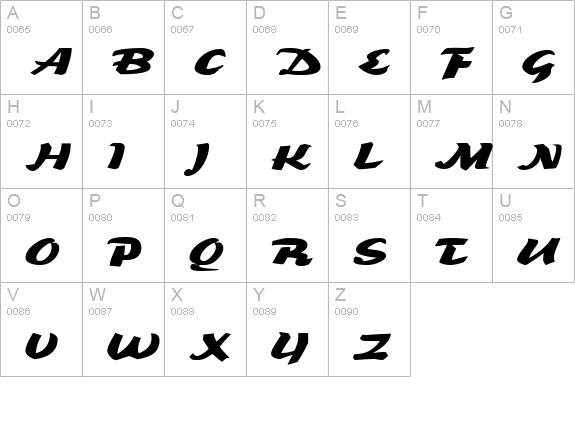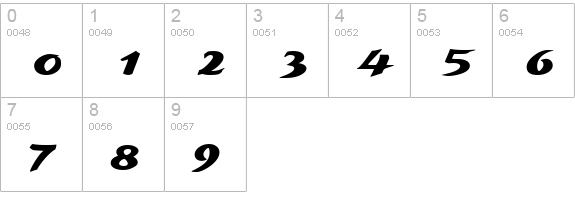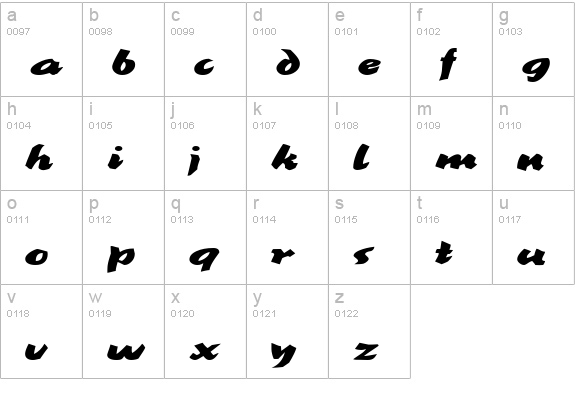
BrookscriptWide Regular is the standard, neutral variant in the BrookscriptWide typeface family \xE2\x80\x94 well suited to general body text, paragraphs, and standard typographic work.
BrookscriptWide Regular is a versatile and modern font that exudes elegance and sophistication. With its clean lines and balanced spacing, this font is perfect for a wide range of design projects, from logos to invitations to branding materials. The smooth curves and sharp angles of BrookscriptWide Regular give it a contemporary edge while maintaining a timeless appeal. The best part? BrookscriptWide Regular is available for free download at FontsMarket.com. Whether you're a professional designer looking to add a new font to your collection or a hobbyist seeking to enhance your creative projects, BrookscriptWide Regular is a fantastic choice. Don't miss out on the opportunity to elevate your designs with this stunning font that is both stylish and accessible. Download BrookscriptWide Regular today and let your creativity soar!